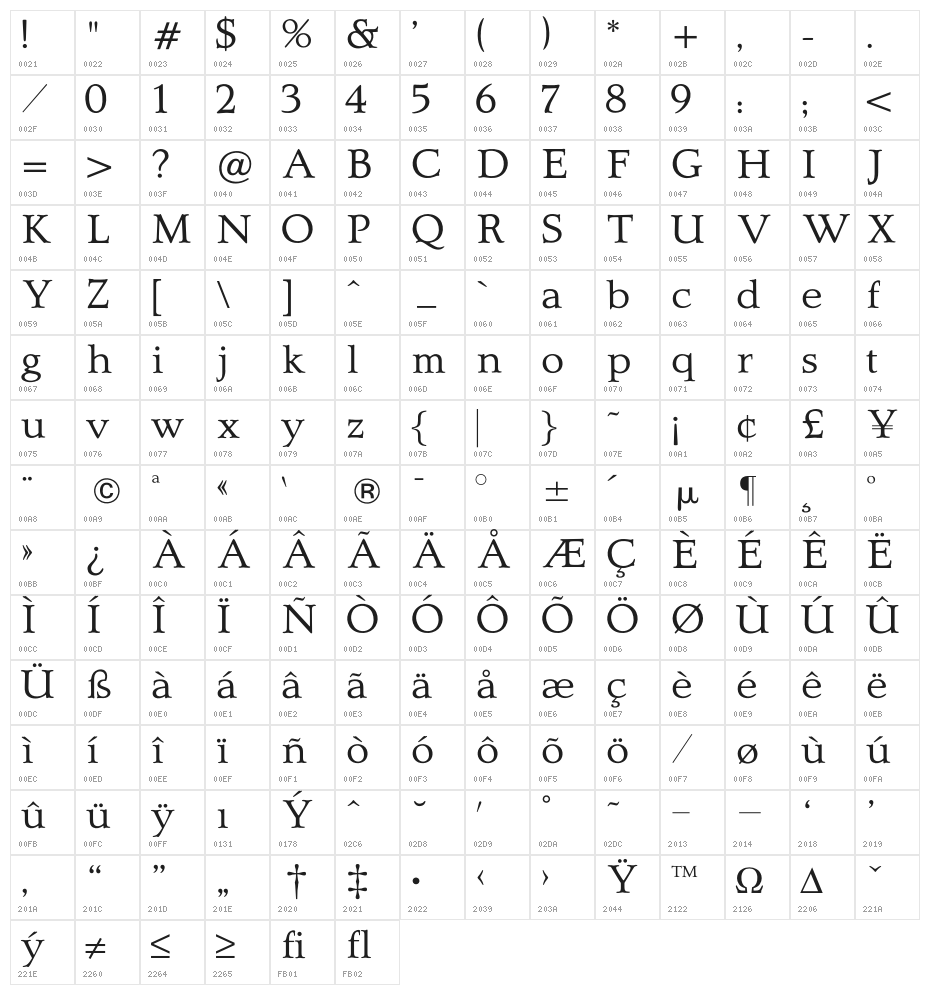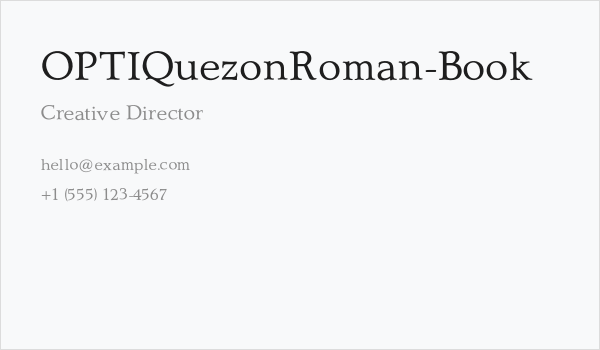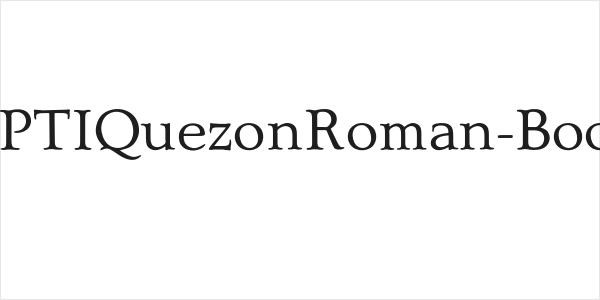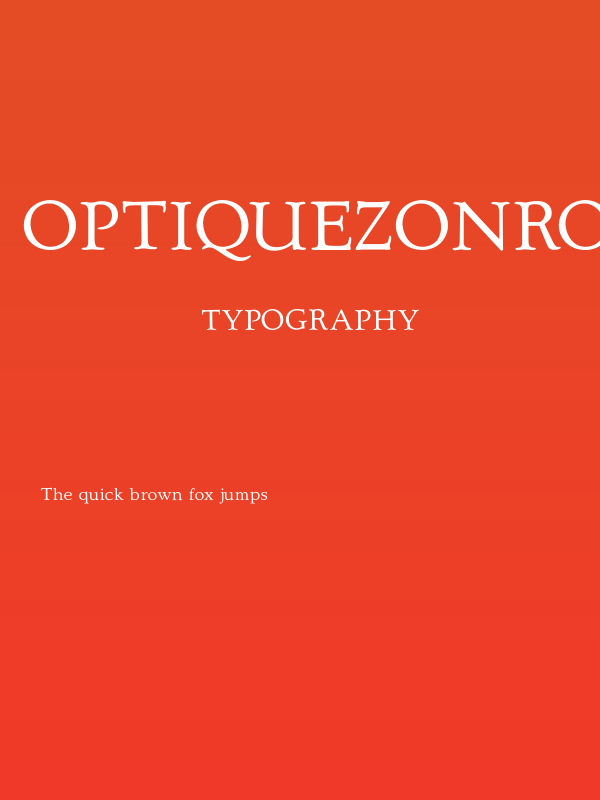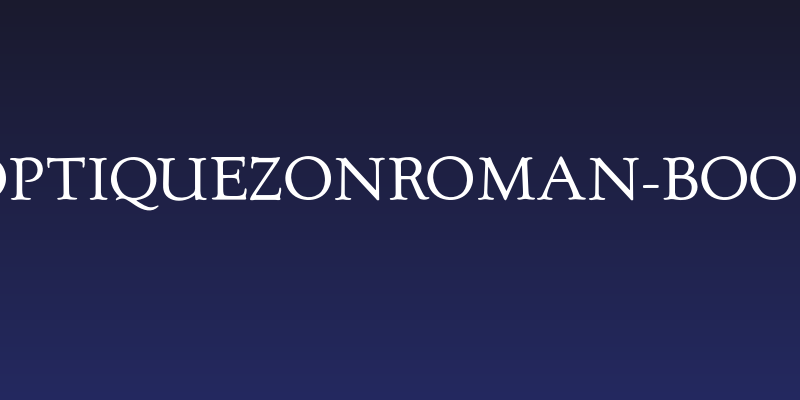
OPTIQuezonRoman-Book Font
OPTIQuezonRoman-Book Description
This font features a classic serif design with a refined and elegant appearance. The characters exhibit a balanced stroke width, providing a harmonious blend of thick and thin lines. The uppercase letters are stately and well-proportioned, while the lowercase letters maintain a consistent style that complements the overall aesthetic. The numerals are clear and legible, making them suitable for various applications. Special characters are distinct and integrate seamlessly with the rest of the typeface. The font's traditional style is ideal for projects that require a touch of sophistication and timeless appeal.